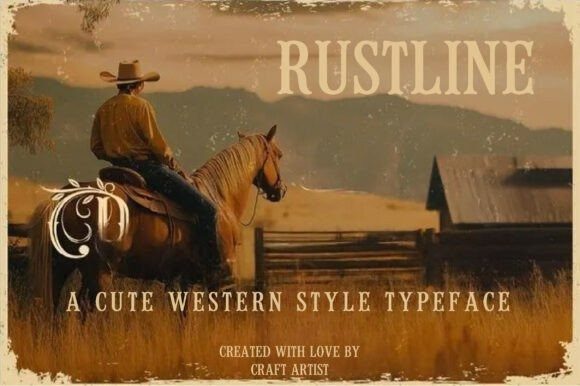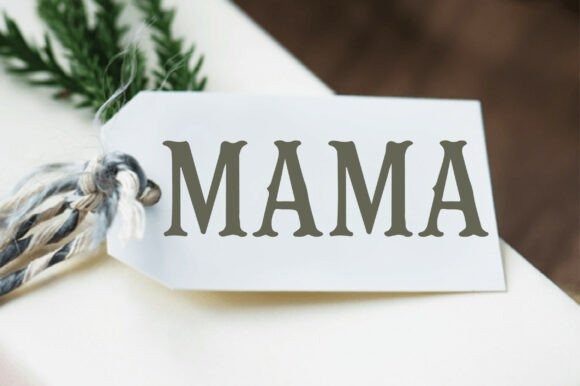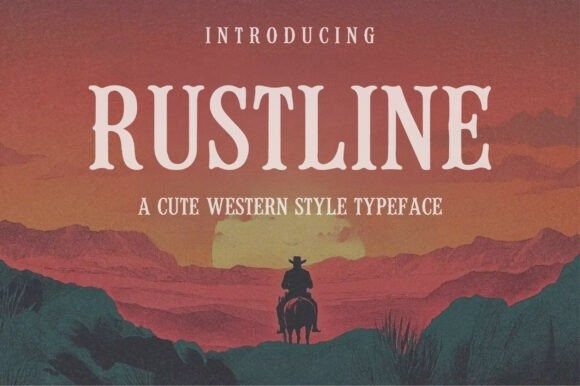
Rustline Font
Rustline Font is a bold and rugged vintage slab serif font inspired by old western posters and classic print styles. Its strong, timeless letters bring a nostalgic charm that fits perfectly for logos, branding, apparel, and signage.
Whether you’re designing a retro badge, whiskey label, or rustic headline, Rustline adds bold character and vintage warmth to your project.